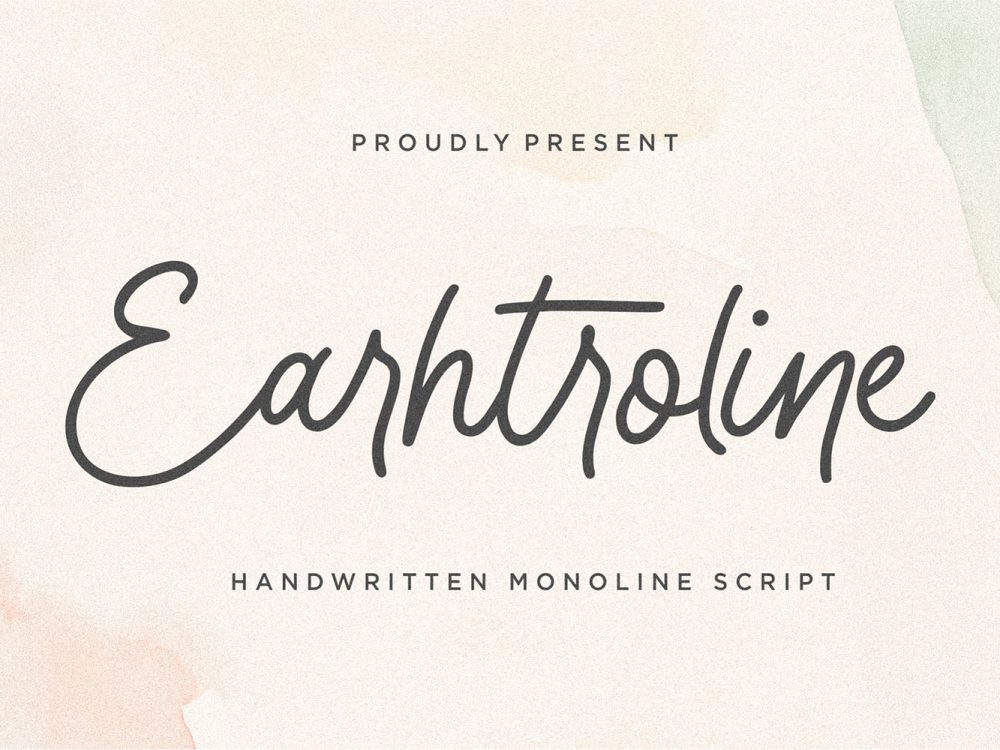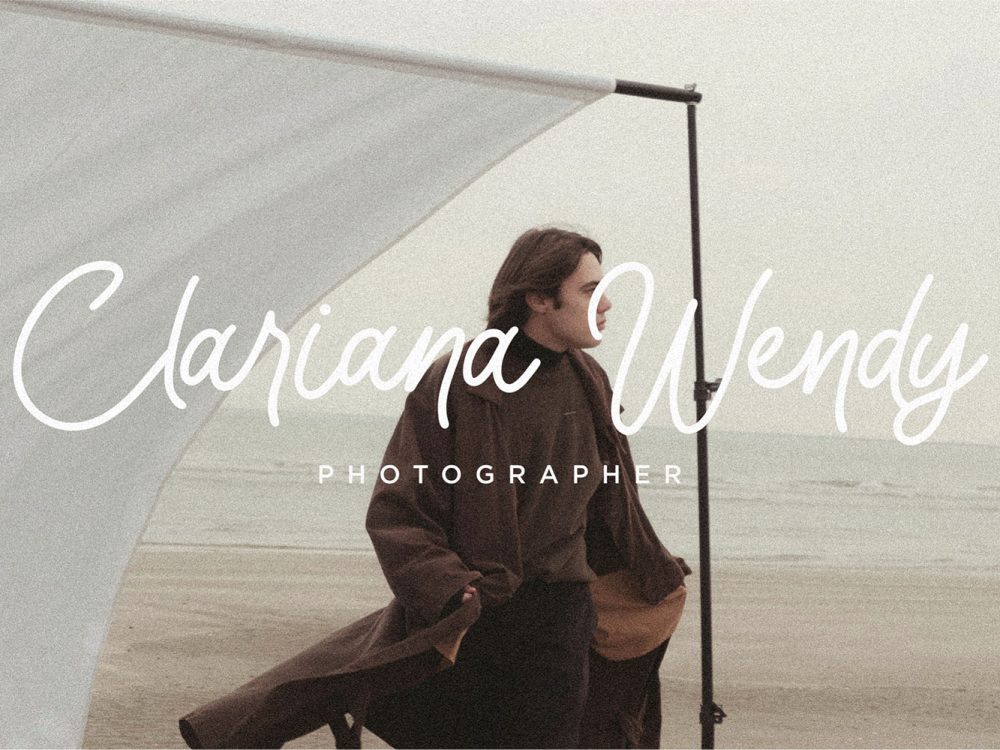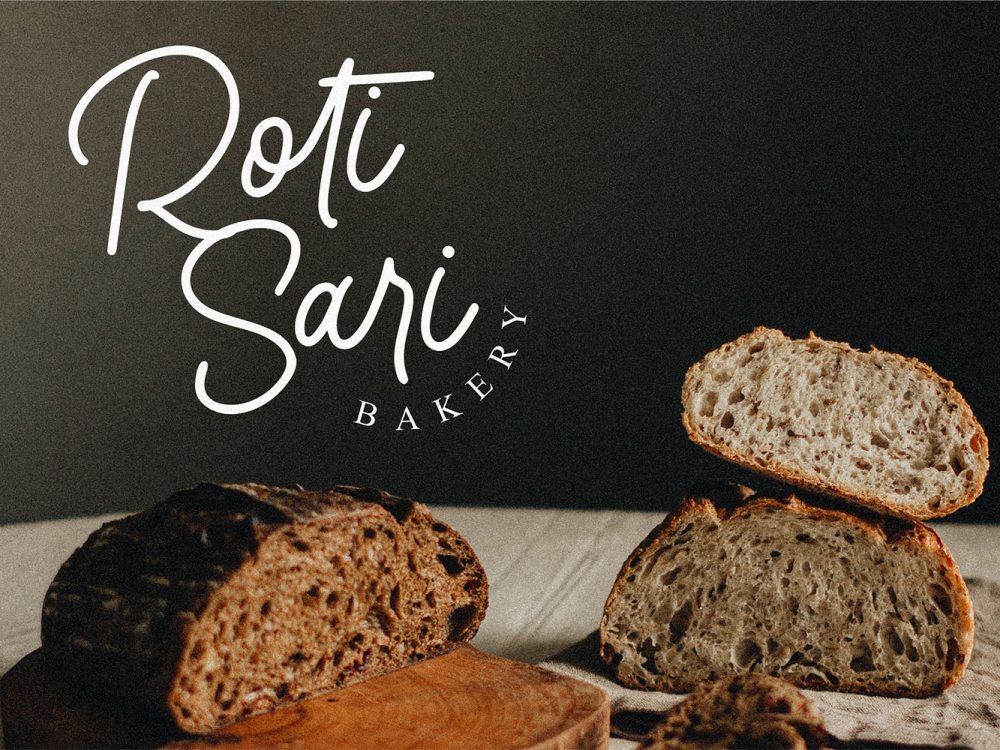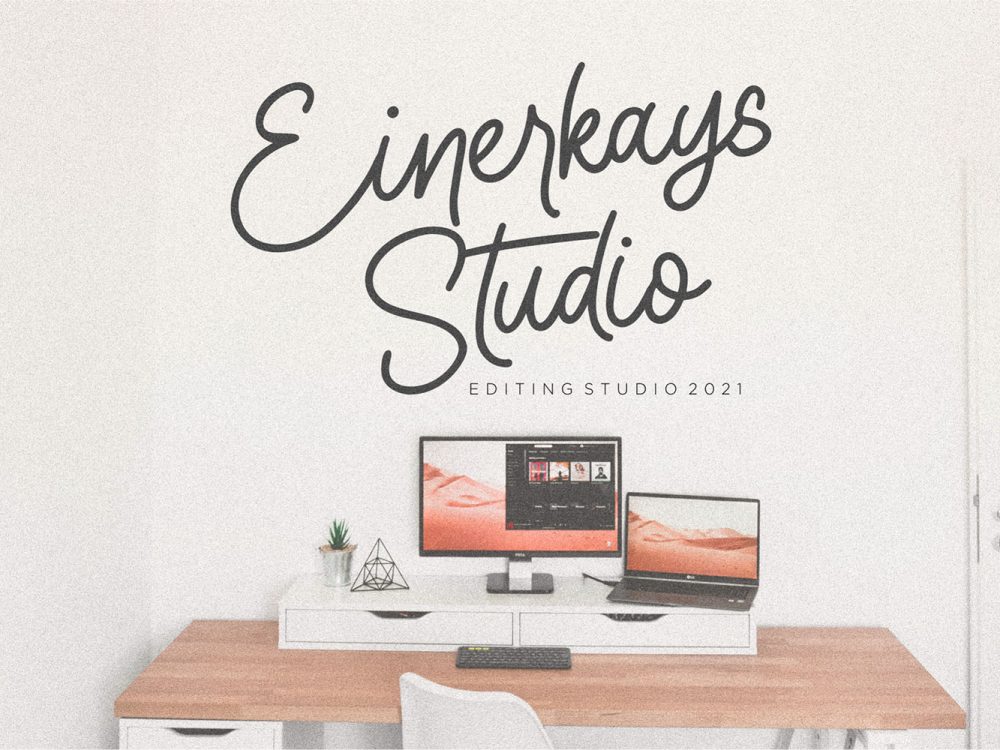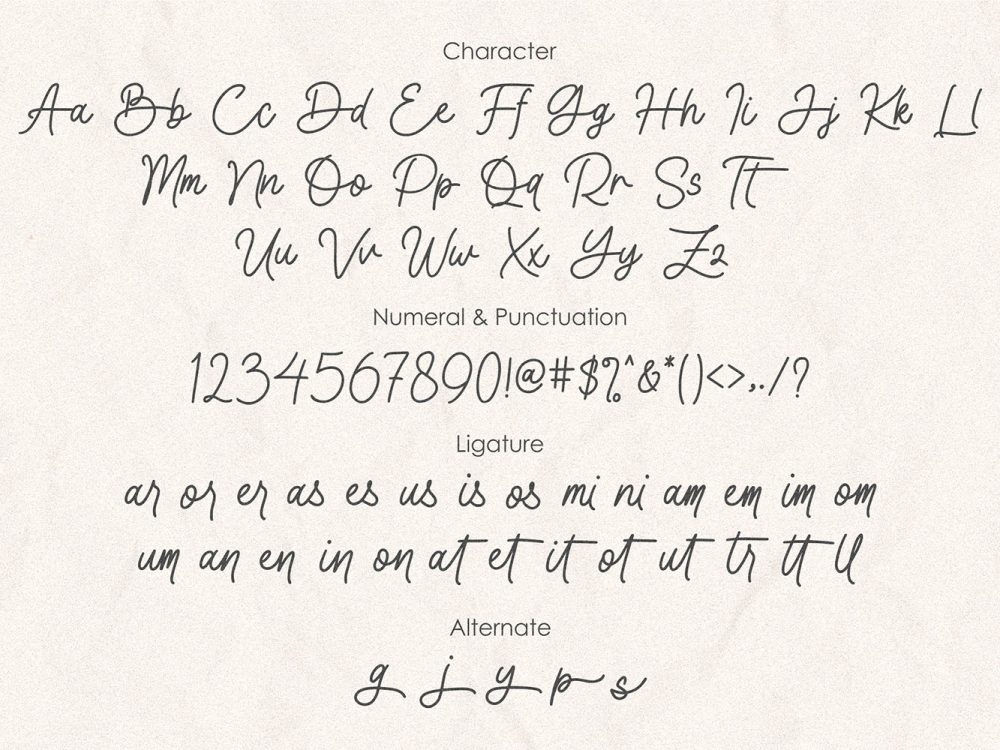
Earhtroline Free Font is a captivating handwritten font that offers versatility for a wide range of applications, from crafting heartfelt greeting cards to creating eye-catching headlines. If you like it don’t forget to check out the full version.